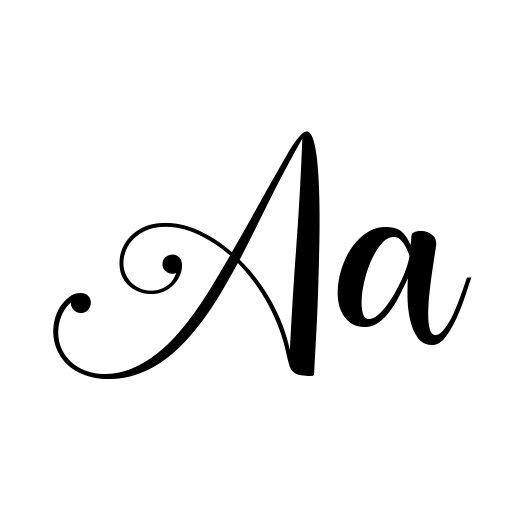
Bestalia PU is an elegant script font featuring delicate, flowing strokes and a refined, handwritten style. Its slender letterforms, graceful curves, and subtle contrast create a sophisticated and airy feel, making it ideal for invitations, branding, and decorative use where a touch of class and personal charm is desired. This font works beautifully in settings that call for a stylish and feminine touch, adding a sense of luxury and refinement.
Bestalia PU Font
About Bestalia PU Font